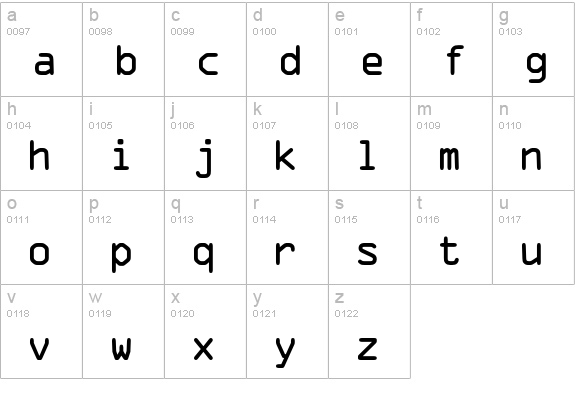
OCRA Alternate Font Details
OCRA Alternate is a versatile and modern font that combines the clean lines of a sans-serif typeface with a touch of unique character. Its distinct style makes it perfect for a wide range of design projects, from branding to editorial design. The sharp edges and geometric shapes give OCRA Alternate a sleek and professional look that is sure to make your text stand out. The best part? OCRA Alternate is completely free to use! You can easily download this font from FontsMarket.com and start incorporating it into your designs right away. Whether you're creating a logo, designing a poster, or working on a website, OCRA Alternate is a fantastic choice that will elevate your work to the next level. Don't miss out on this amazing free font – download OCRA Alternate now and let your creativity soar.